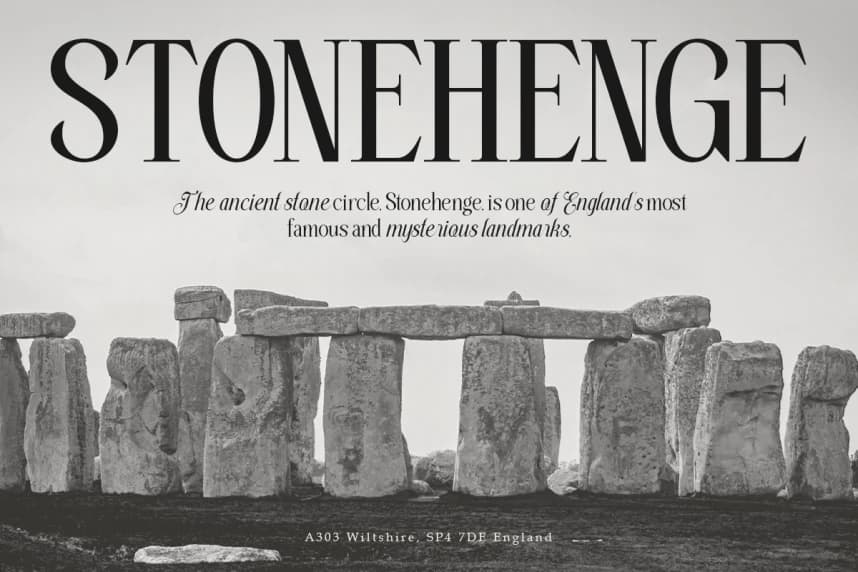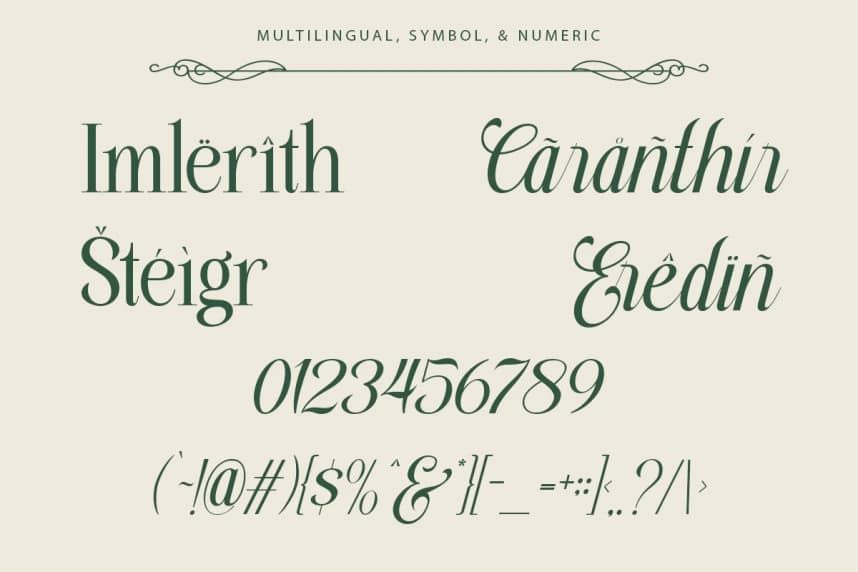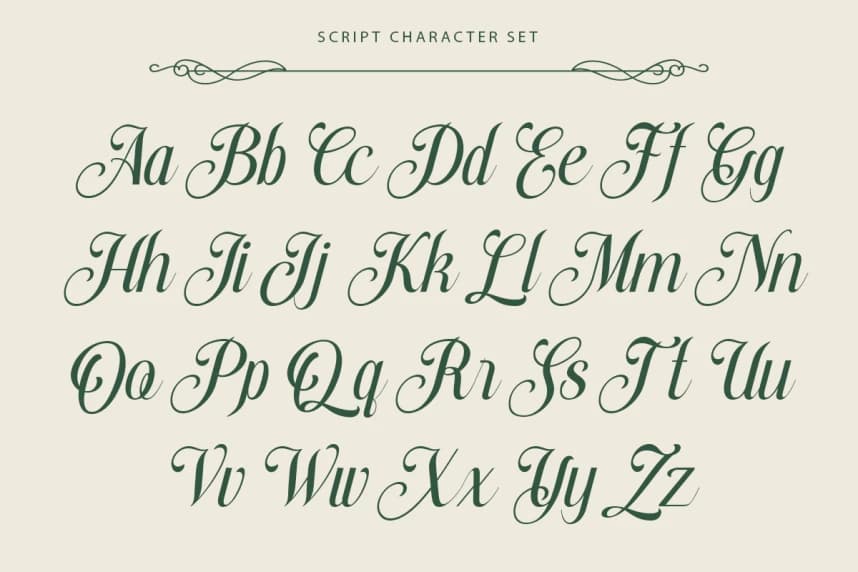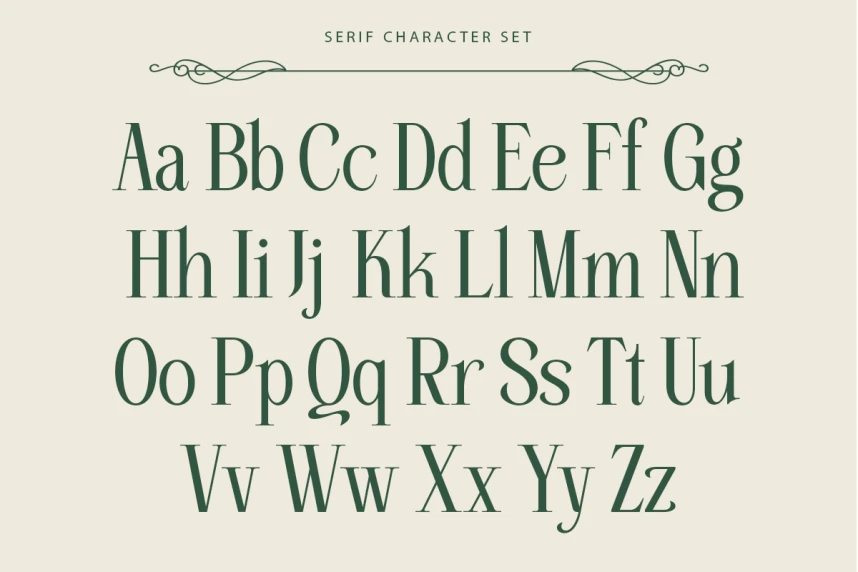
Trendsetter Prestige Font
Trendsetter Prestige Font – Duo Typeface. This luxury script and timeless serif are perfectly designed for one another-not only are they strong standalone fonts, but will pair beautifully when placed side by side. Feeling creative? They can even be mixed together within the same word for a more eye-
Trendsetter Prestige Font – Duo Typeface. This luxury script and timeless serif are perfectly designed for one another-not only are they strong standalone fonts, but will pair beautifully when placed side by side. Feeling creative? They can even be mixed together within the same word for a more eye-catching layout